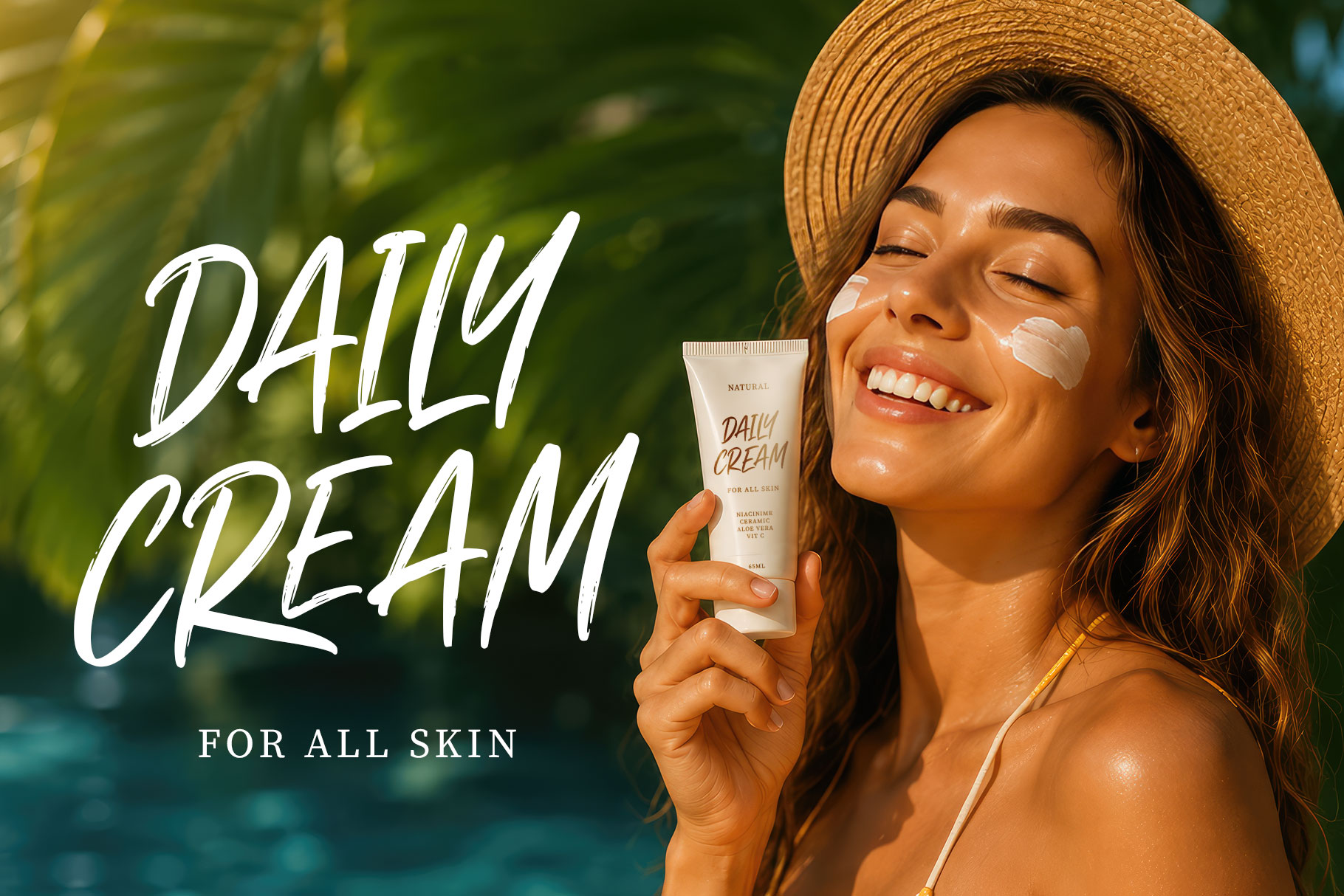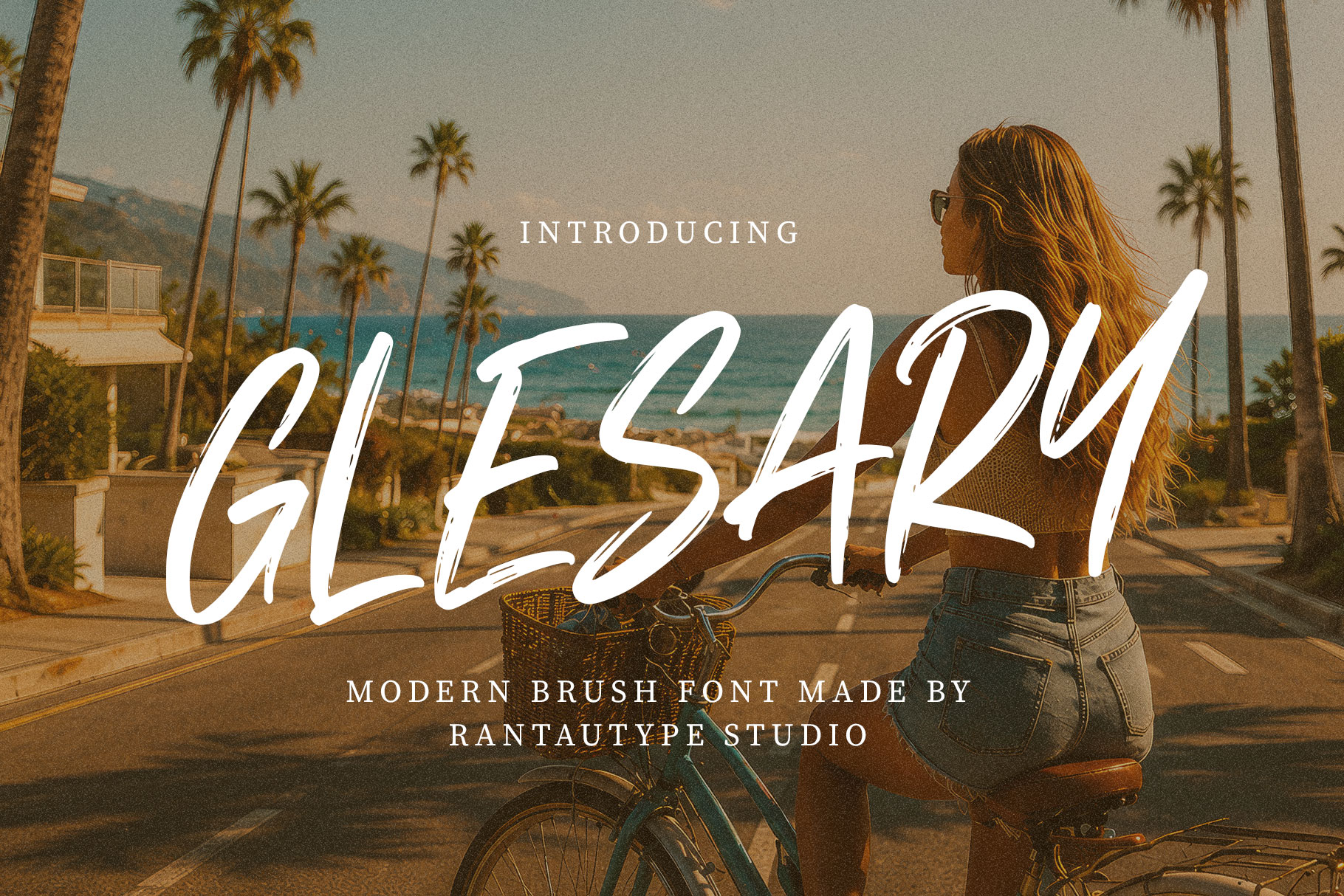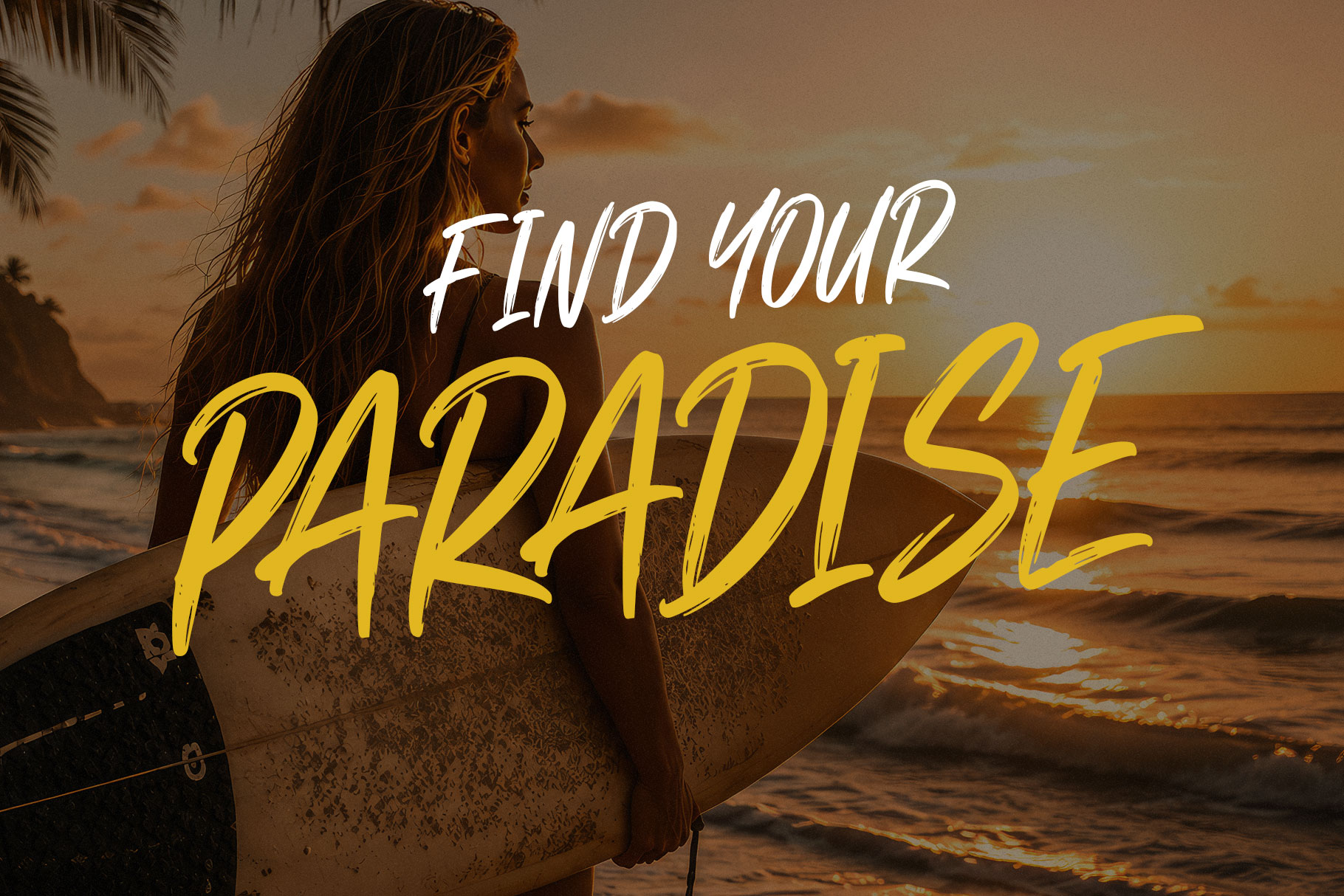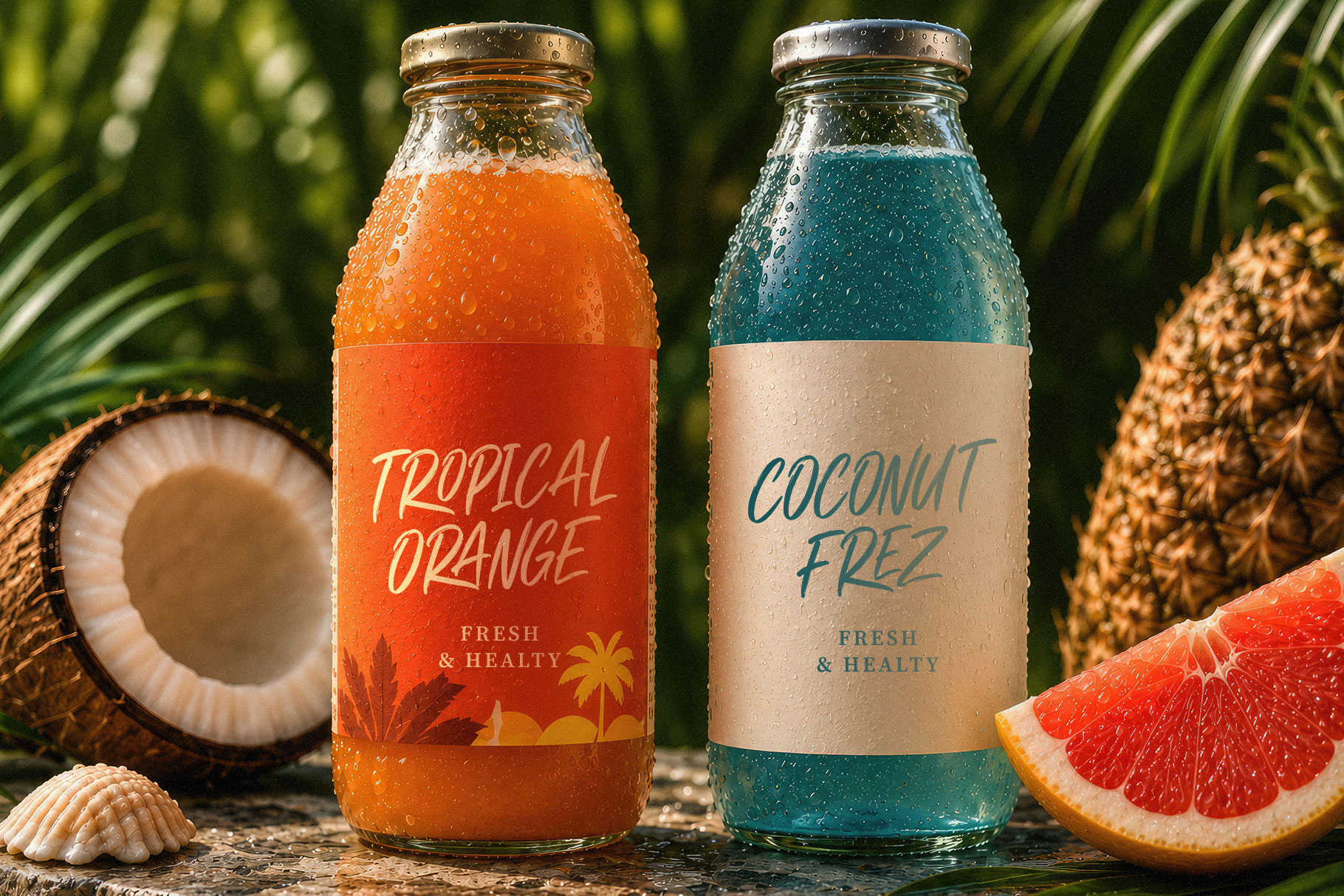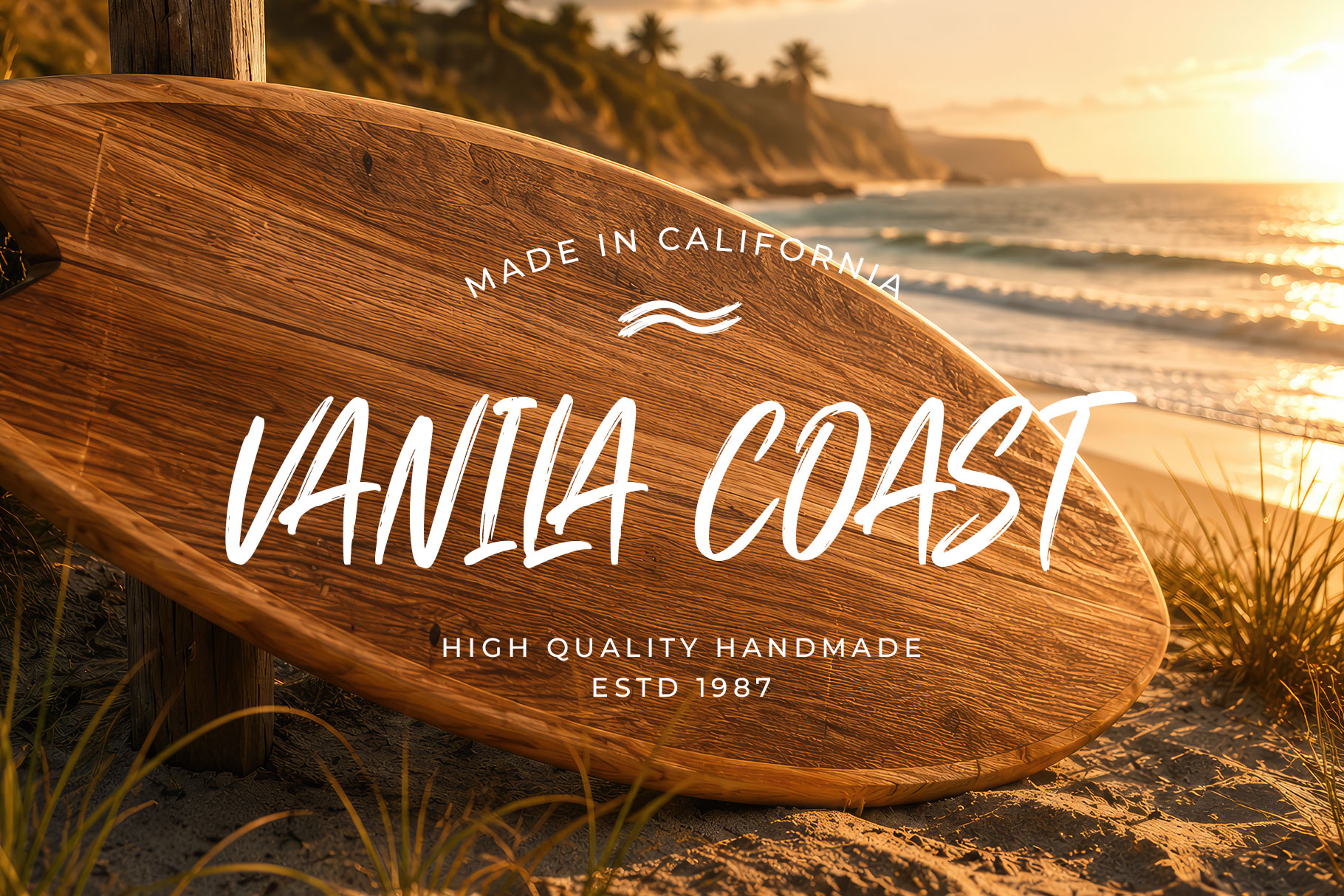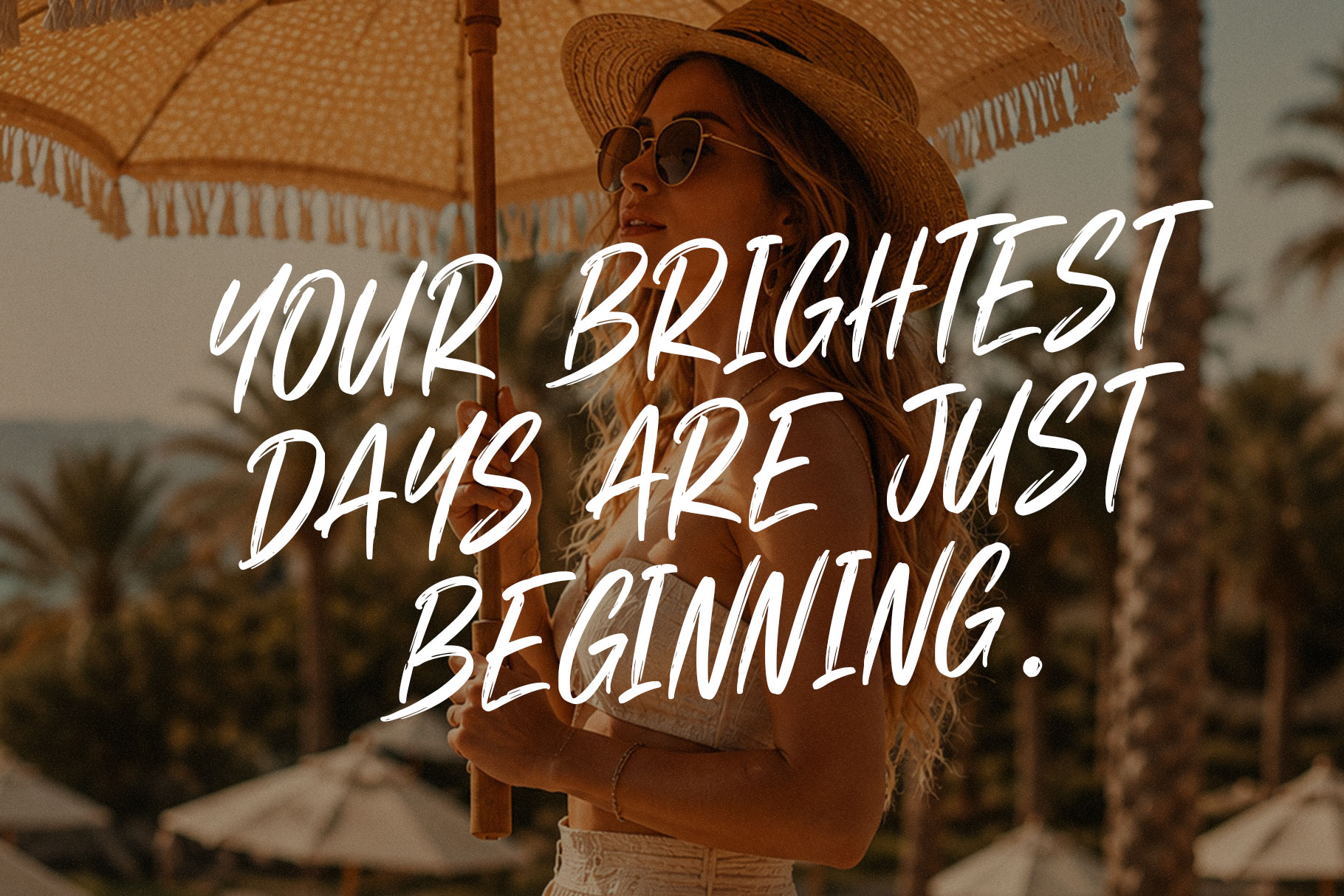
Glesary is brush font captures the vibrant spirit of hand-painted lettering with energetic strokes and an authentic handcrafted appearance. Each letter is created with expressive brush textures that feature natural pressure changes, rough edges, and subtle dry-brush details, giving the typeface a lively and organic personality.
Glesary is a perfectly choice for any creative endeavor, creating, modern, lifestyle design such as logotype, title, cover, branding, invitations, wedding designs, display and magazine, social media posts, advertisements, printed quotes, product packaging, corporate brand, product designs, labels, photography, watermarks, special events and any other project with modern touch.
Glesary Modern Brush Font